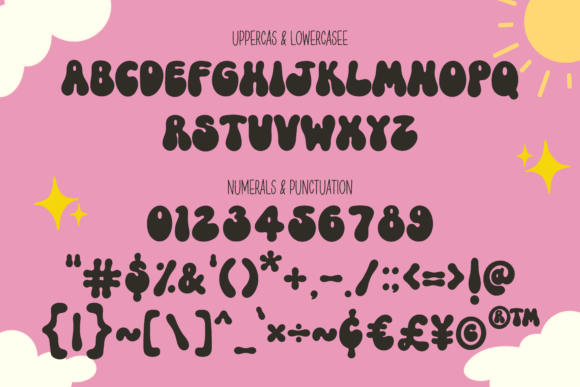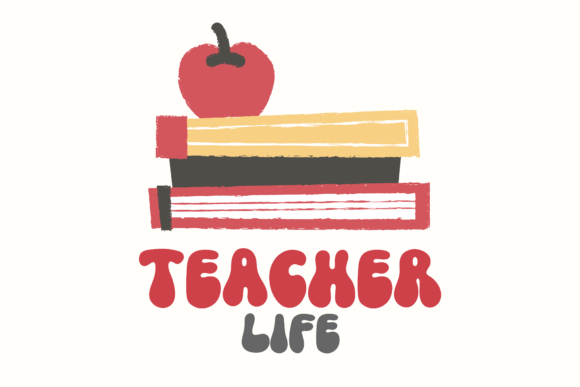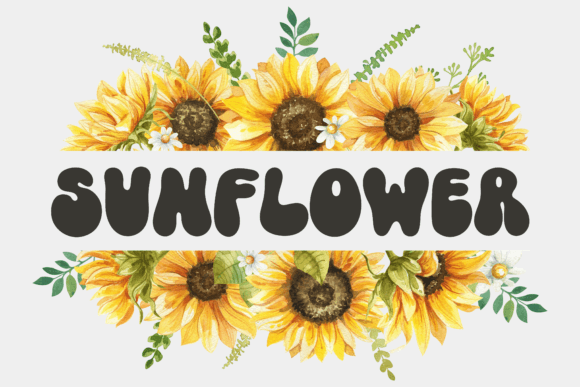
Groovy Party Font
Groovy Party is a cute groovy retro display font. It will be suitable for designing t-shirts, tote bags, hats, stickers, wedding designs, logos, cards, quotes, and more! Groovy Party will make any creative idea stand out and be stunning!